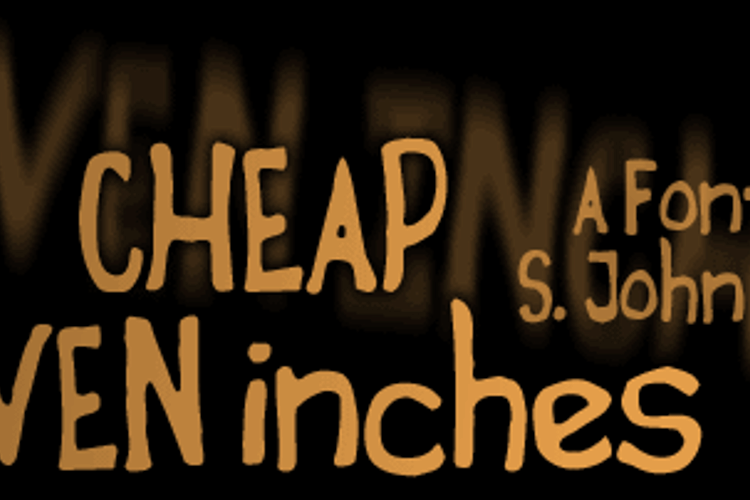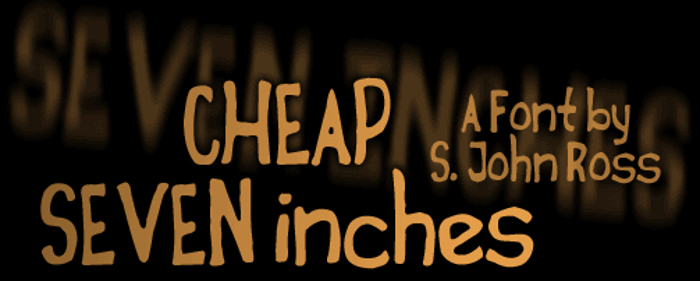
Cheap Seven Inches Font
When my friend Tim visited recently to hang out and enjoy the South By Southwest film and music festival, we were poking around in a record store up by the University of Texas campus. In the back room, they're selling off old seven-inch vinyl records for collectors. A hand-scrawled sign said "Cheap Seven-Inches."
I said to Tim "That'd be a good name for a band." I mean, it refers to something any record collector will understand, but has that hint of double-entendre that's so useful in a band name. Tim agreed it would be a good name for a band.
But I'm not starting a band anytime soon, so I decided it was a good name for a font. And that's pretty much the whole story for this month's offering. It's a full-keyboard set with a few of the usual extras.